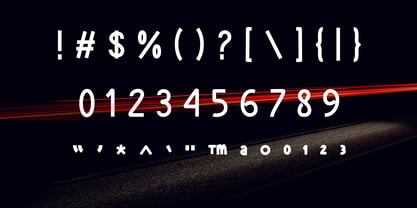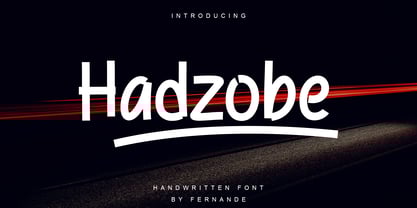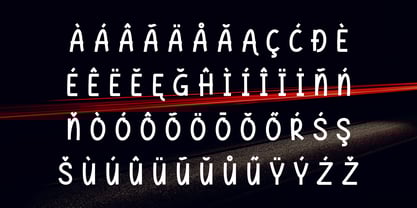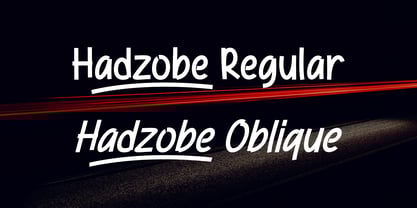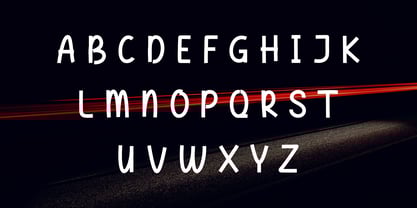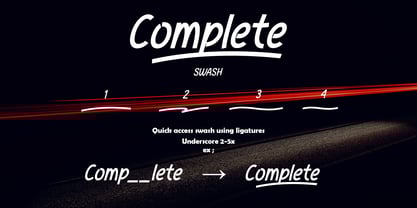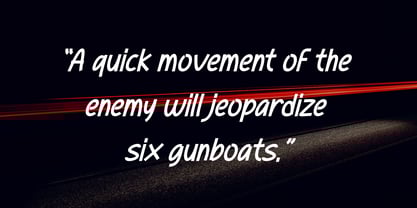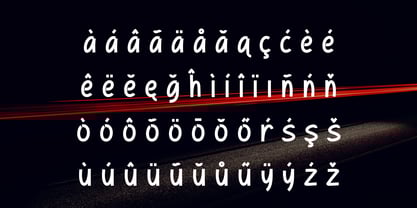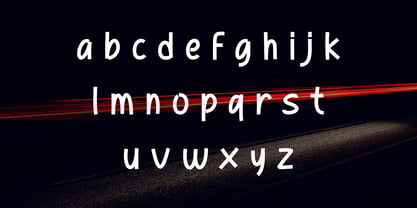
Hadzobe
by Fernande
The Hadzobe Font Family was designed by Angga Fernandi and published by Fernande. Hadzobe contains 2 styles and family package options. More about this family
Introducing Hadzobe, a handwritten typeface that blends a modern handwritten style with a bold and playful touch. Its characters combine rounded shapes with strong straight lines, creating a casual yet energetic impression. This font is well-suited for branding, posters, creative designs, and any typographic project that aims to highlight a relaxed but professional feel.